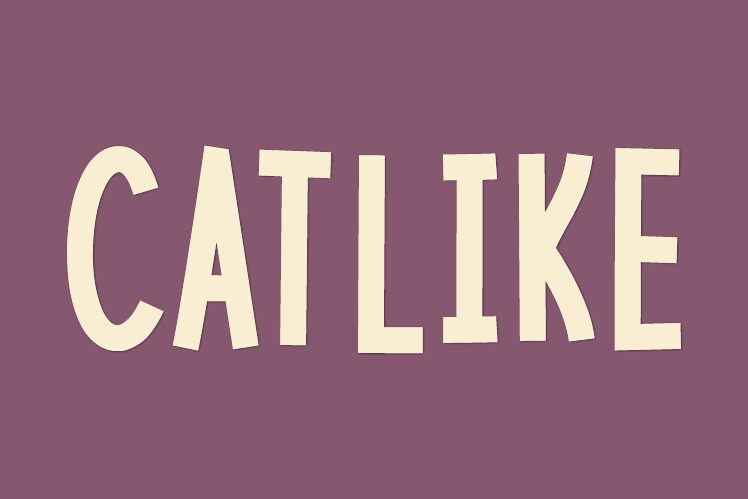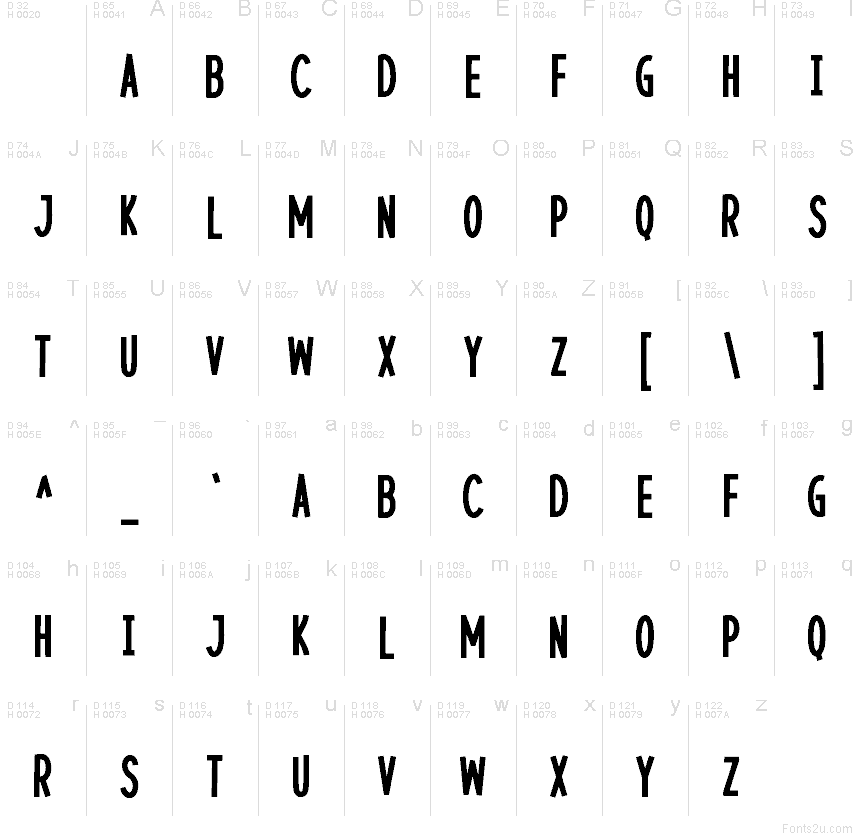
Catlike font by HannaBie Creative Studio is a free comic display typeface with tall, stretched letters that feel like they’ve been yanked upward by pure mischief. The chunky, slightly irregular strokes give it a hand-drawn, poster-style energy-bold, shouty, and a little bit scruffy in the best way. Those condensed shapes pack a lot of personality into tight spaces, so you can shout your message without eating the whole page.
Using Catlike, this free font, you can nail punchy titles for comic covers, kids’ book pages, playful packaging, YouTube thumbnails, event flyers, and bold social graphics. It shines when you set it large and let the vertical drama do the work, then support it with a simple, clean sans serif for body copy. Think of it as your go-to for any project that needs loud, cheeky lettering that still reads clearly at a glance.